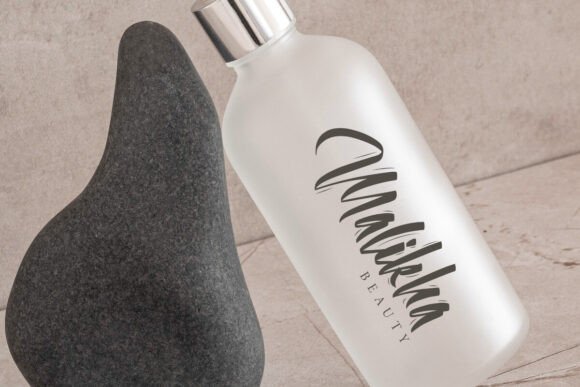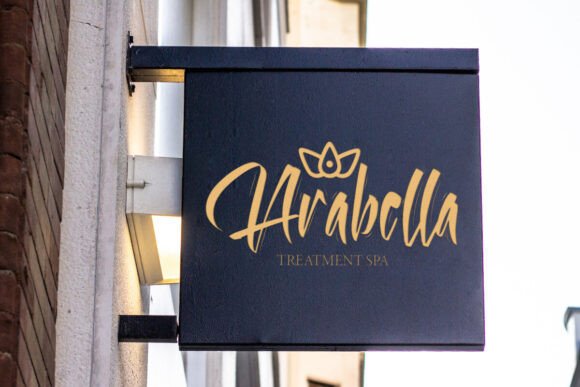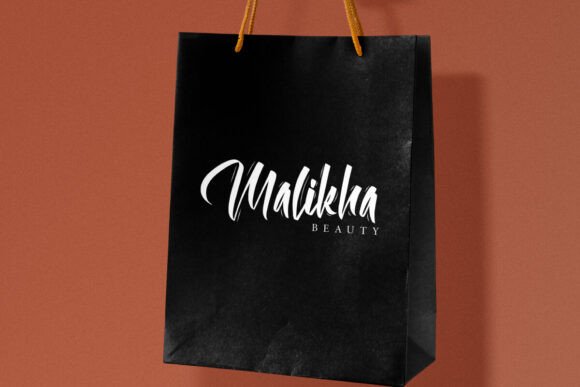
Halogenious Font: Vintage Calligraphy Script for Elegant Branding & Logos
About the Halogenious Font
Step up your design game with Halogenious Font, a font that exudes confidence and style. Halogenious Font is a vintage calligraphic script display font with a textured effect on its characters. It will be perfect for all branding and digital designs. This font is perfect for advertising, blogs, brand identity, brochures, corporate signs, cover, headers, invitations, labels, logos, packaging design, quotes, stationery, stickers, typographic design, website, etc.
Halogenious is best suited for headlines, short text blocks, and display applications such as logos, posters, and packaging where its textured calligraphic style makes a strong visual statement. Avoid using it for body text or long paragraphs; the vintage texture and script form hinder readability at smaller sizes.
Its inherent personality is bold and slightly rebellious, lending itself well to brands with a vintage or handcrafted aesthetic. Consider pairing it with a clean sans-serif like Montserrat for contrast, or a geometric sans-serif like Futura for a more modern feel. A subtle serif like Playfair Display could also create a sophisticated balance.
For a softer approach, a delicate script font like Great Vibes could complement its boldness, while maintaining a cohesive calligraphic theme. Conversely, pairing it with a strong, minimalist sans-serif will emphasize Halogenious’s vintage character.
Halogenious Font Usage Examples
Halogenious Font Example